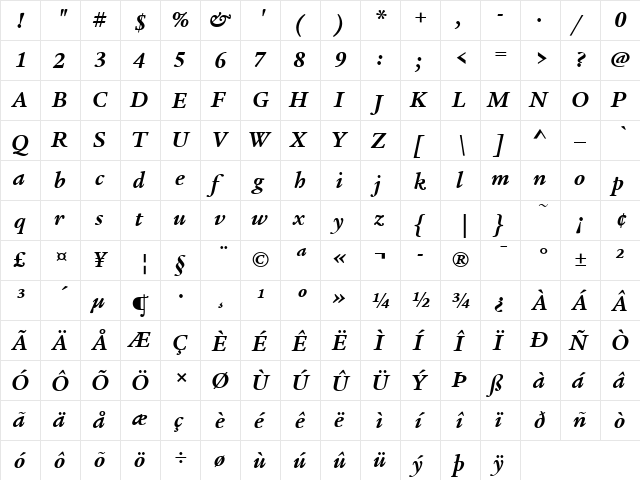
ITCLegacySerif LT Book Bold Italic Font Preview
Design Context for ITCLegacySerif LT Book Typeface
ITCLegacySerif LT Book carries the refined structure of traditional serif typography, with bracketed terminals and considered proportions that communicate credibility and craft. The dynamic lean of this cut emphasises speed and emphasis in any layout. The heavy weight commands attention and anchors typographic hierarchies.